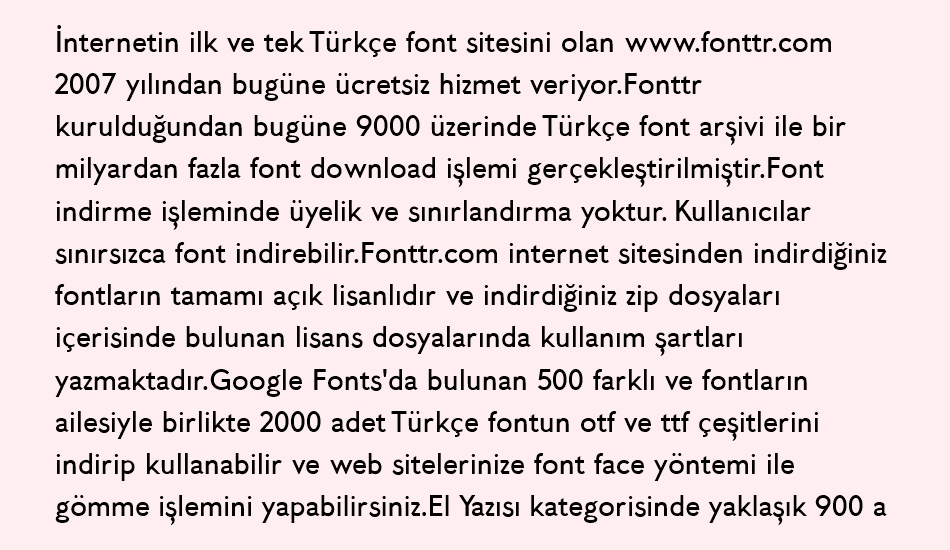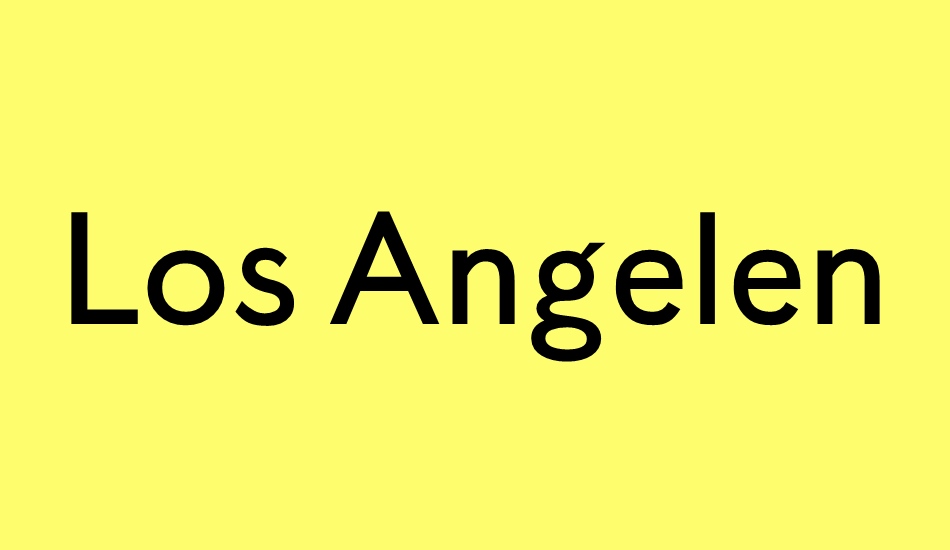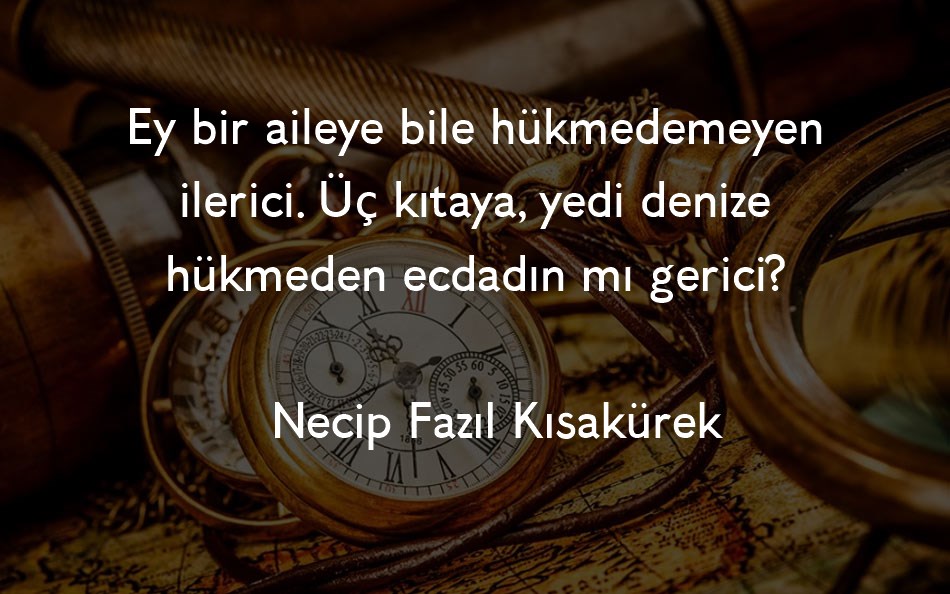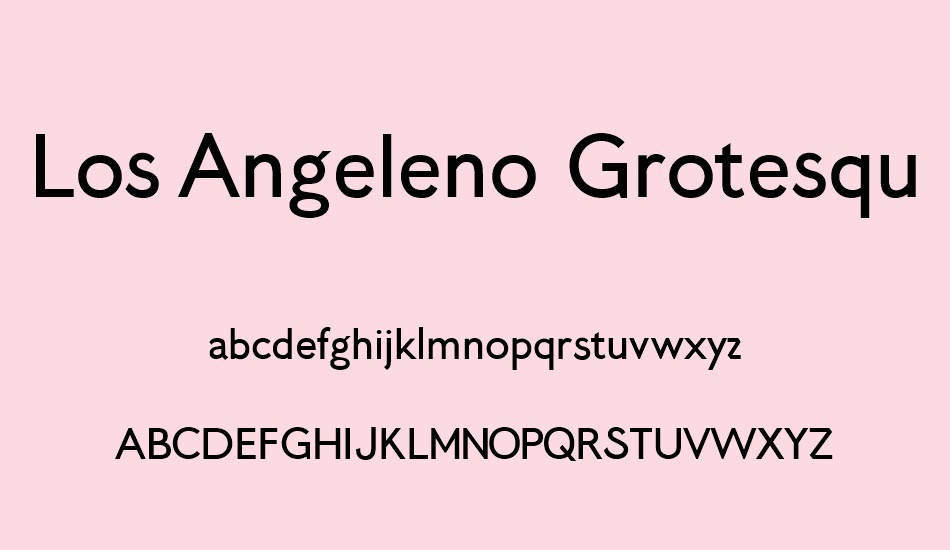
Los Angeleno Sans font
Los Angeleno Sans
A sans-serif, modernist, humanist, spurred, wonky reimagining of Gill Sans with terminals inspired by Grotesque MT Std and the municipal transportation geometry of Drogowskaz and Highway Gothic. For Los Angeles.